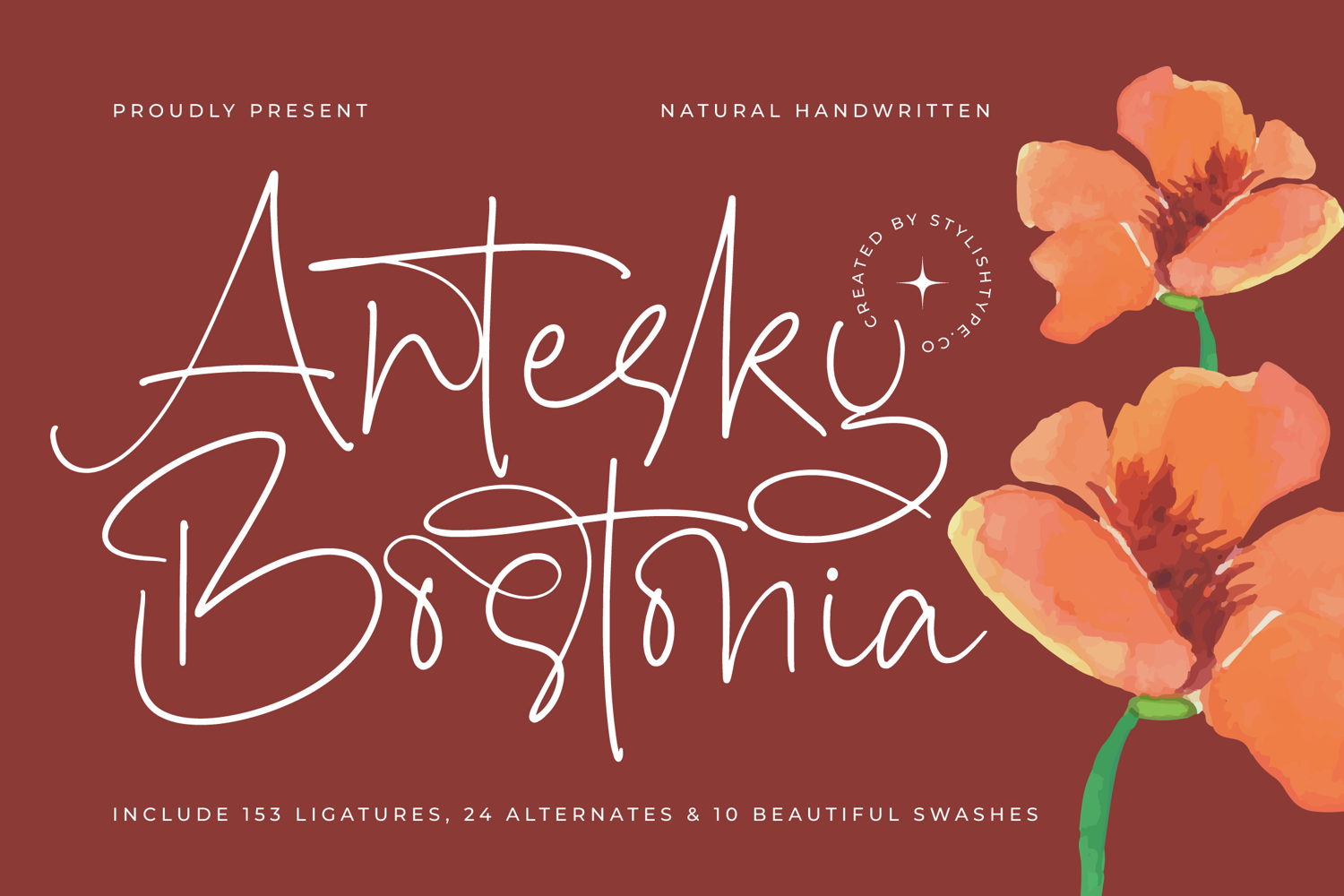
Antesky Bostonia - Natural Handwritten
Antesky Bostonia
Antesky Bostonia Italic
Antesky Bostonia - Natural Handwritten includes an astonishing 153 ligatures, 24 alternates, and 10 beautiful swashes. This wealth of glyph variation allows designers to craft truly unique layouts, avoiding the static repetition often found in conventional scripts. Utilize these features to create a seamless, sophisticated flow that delivers powerful visual impact and a truly bespoke feel.